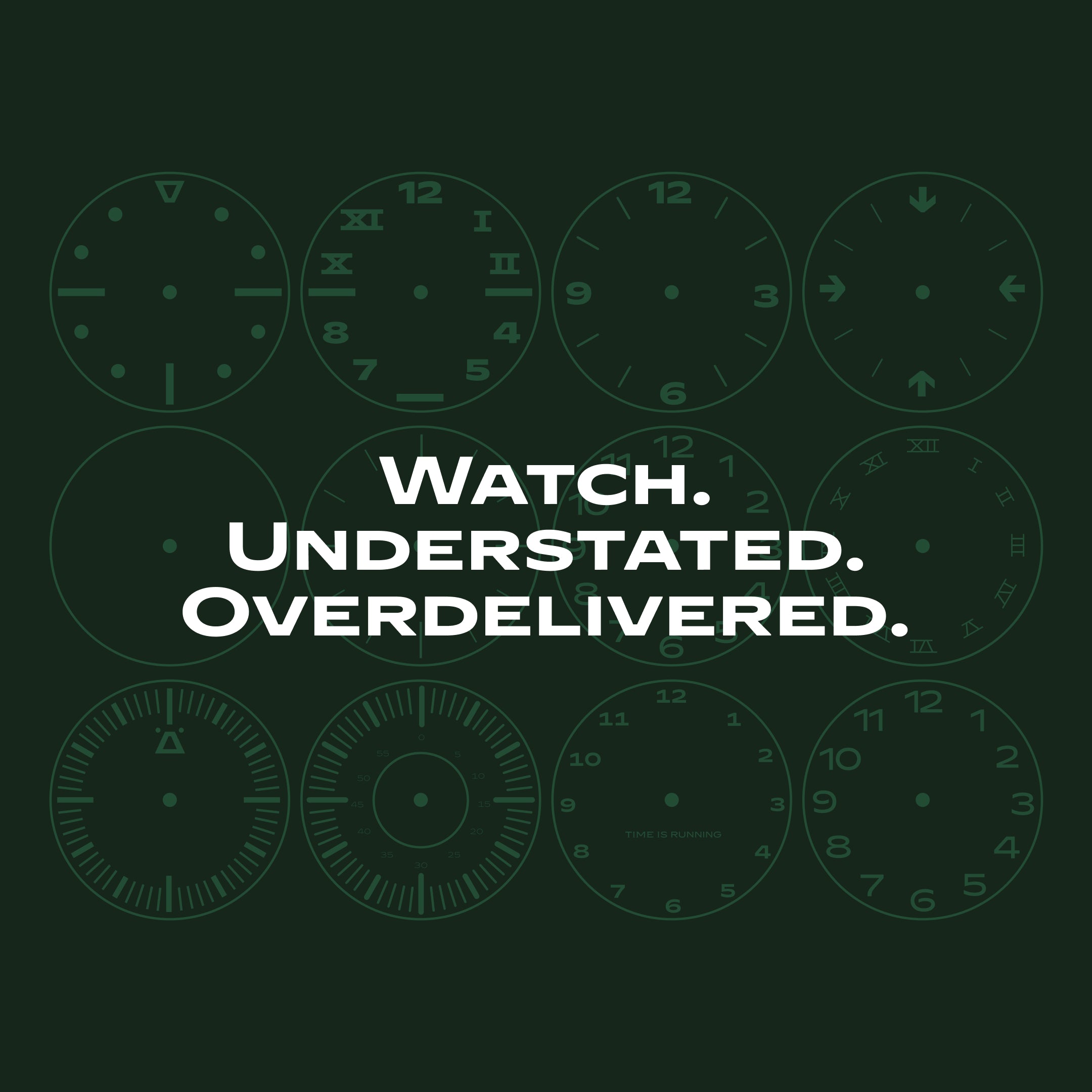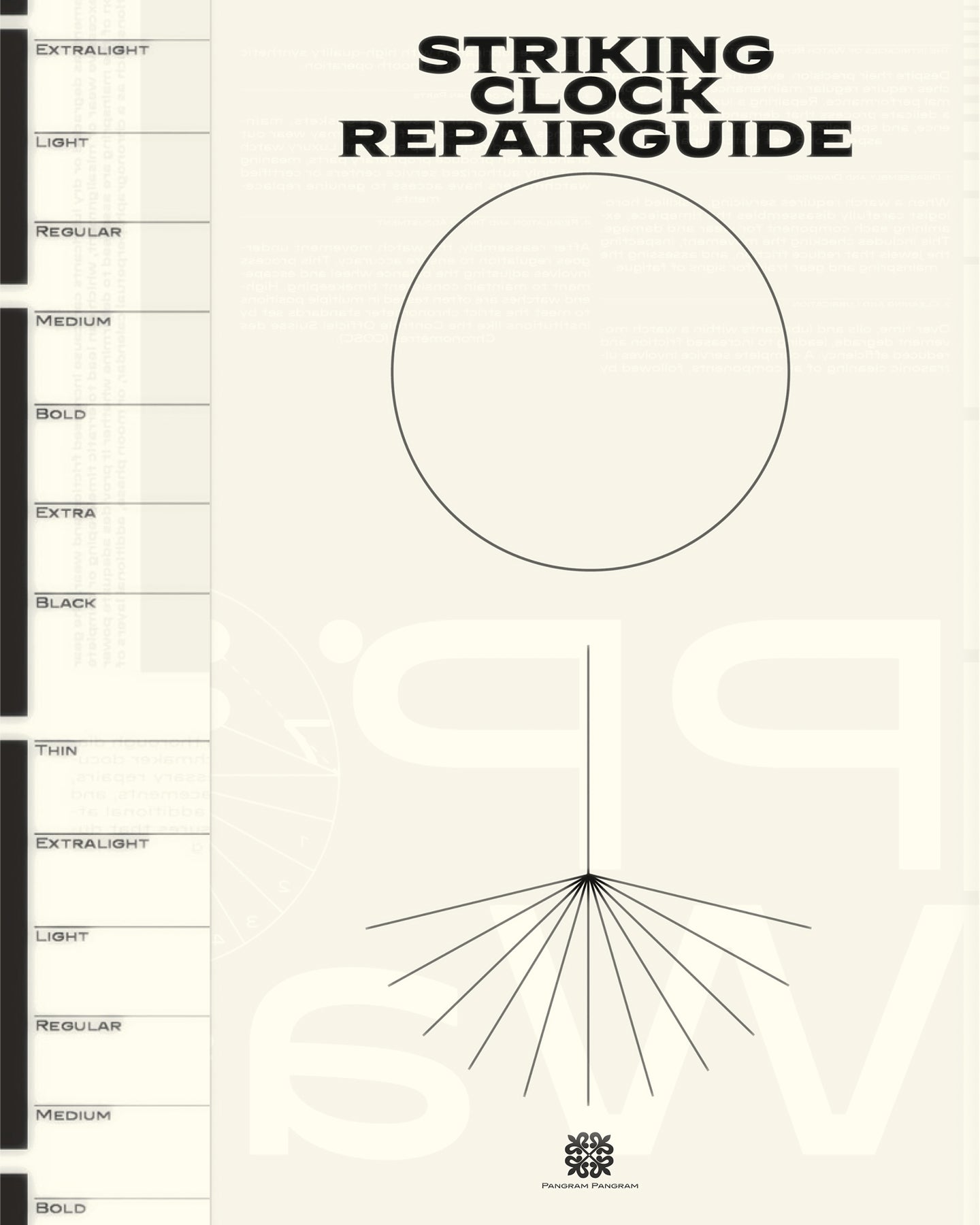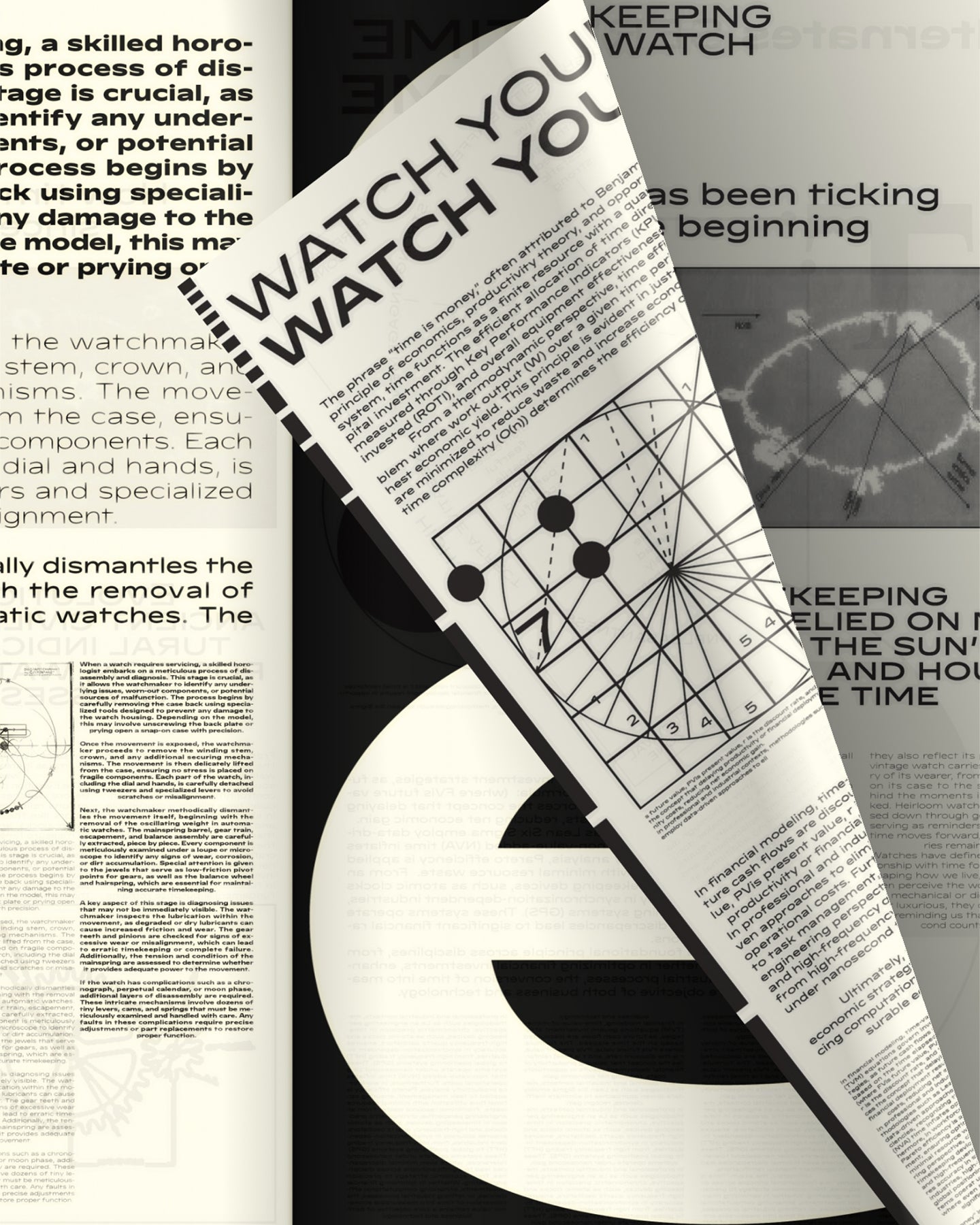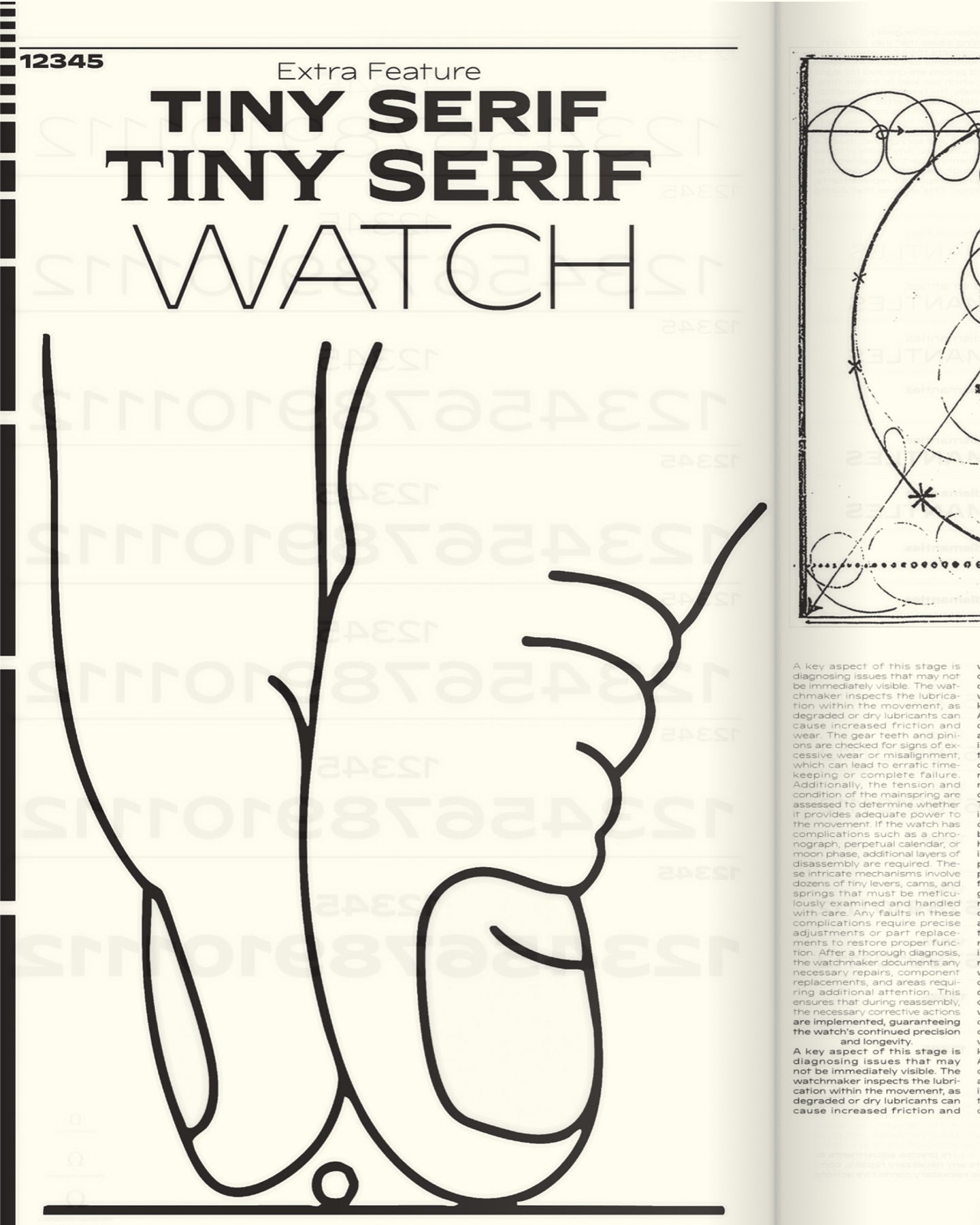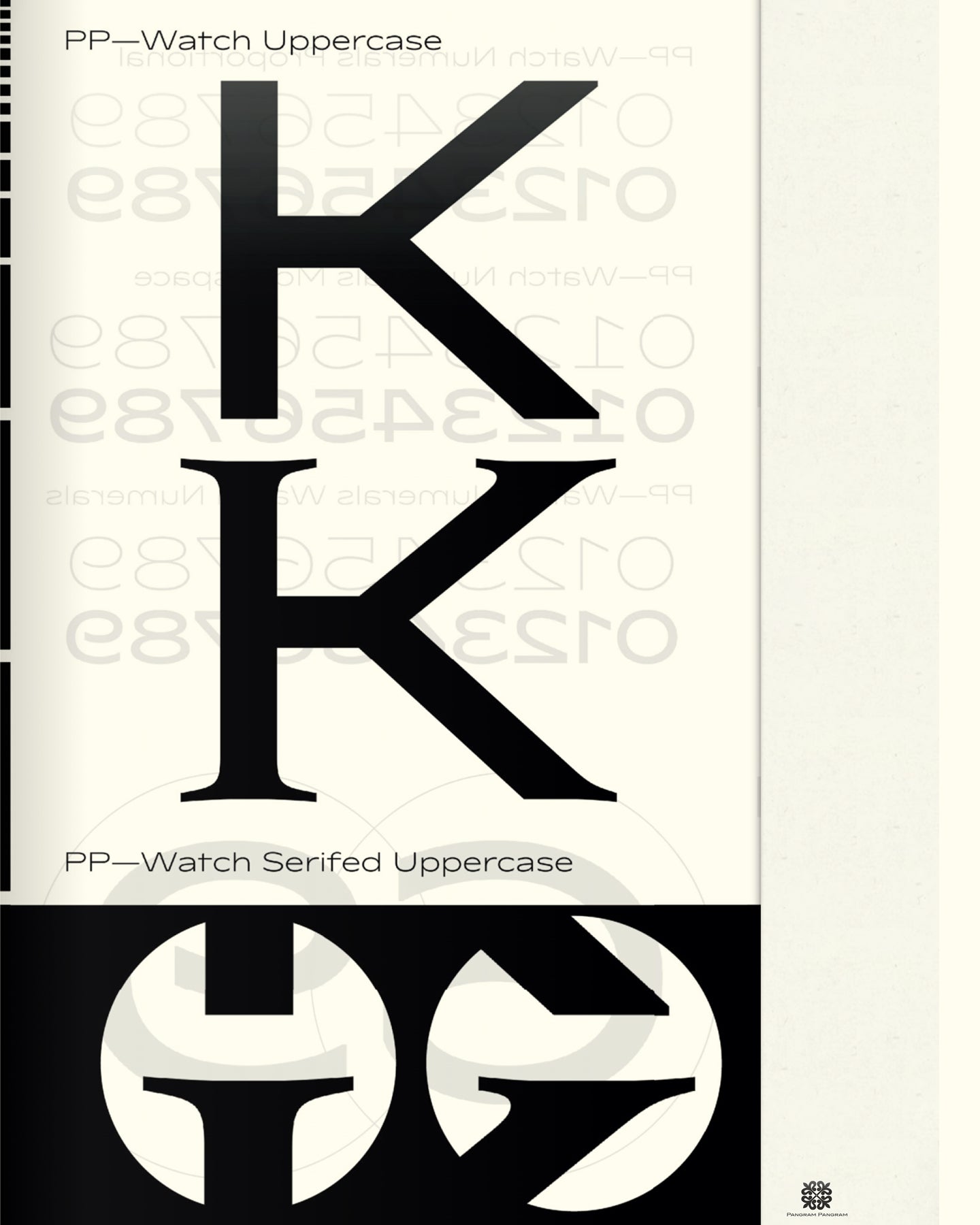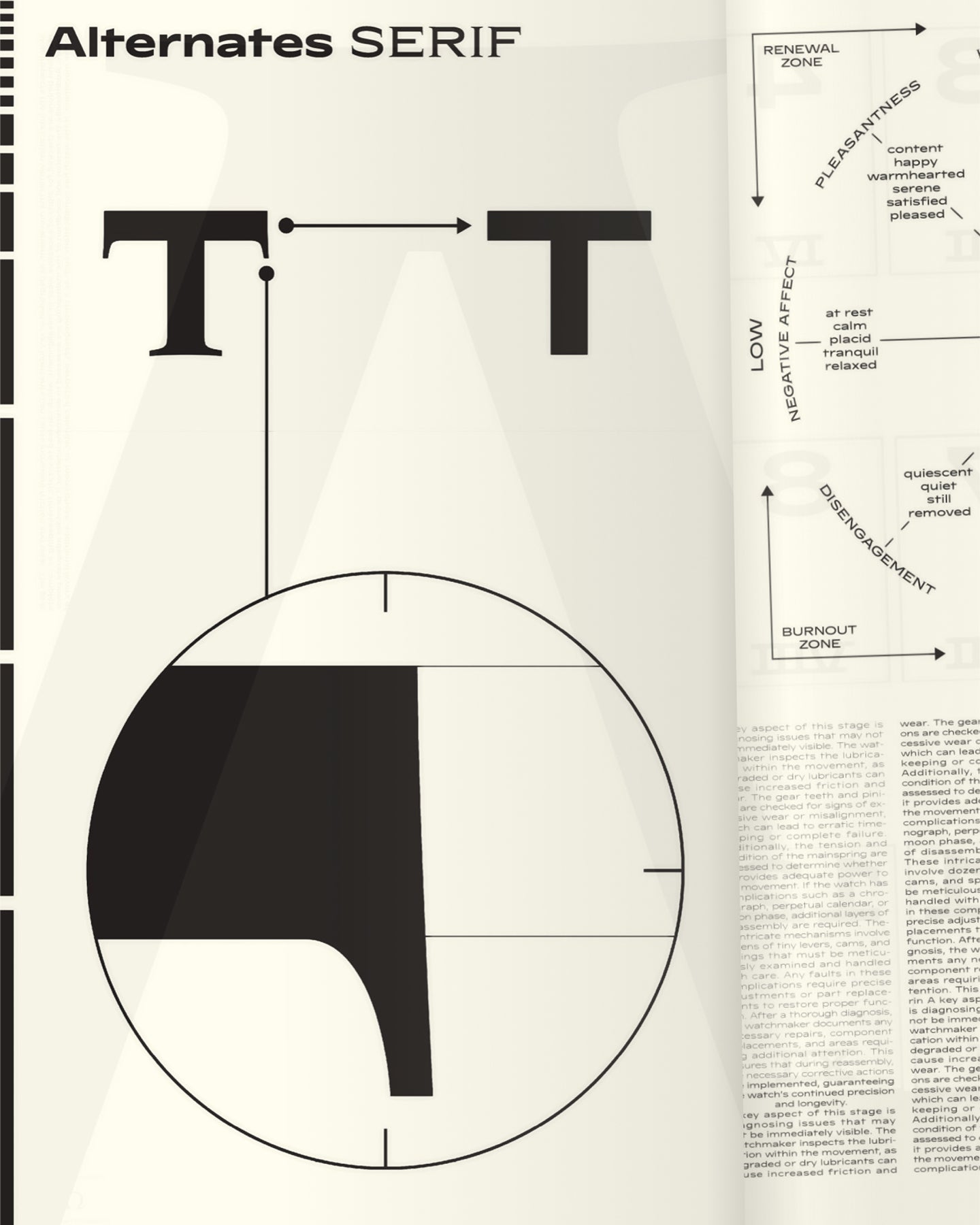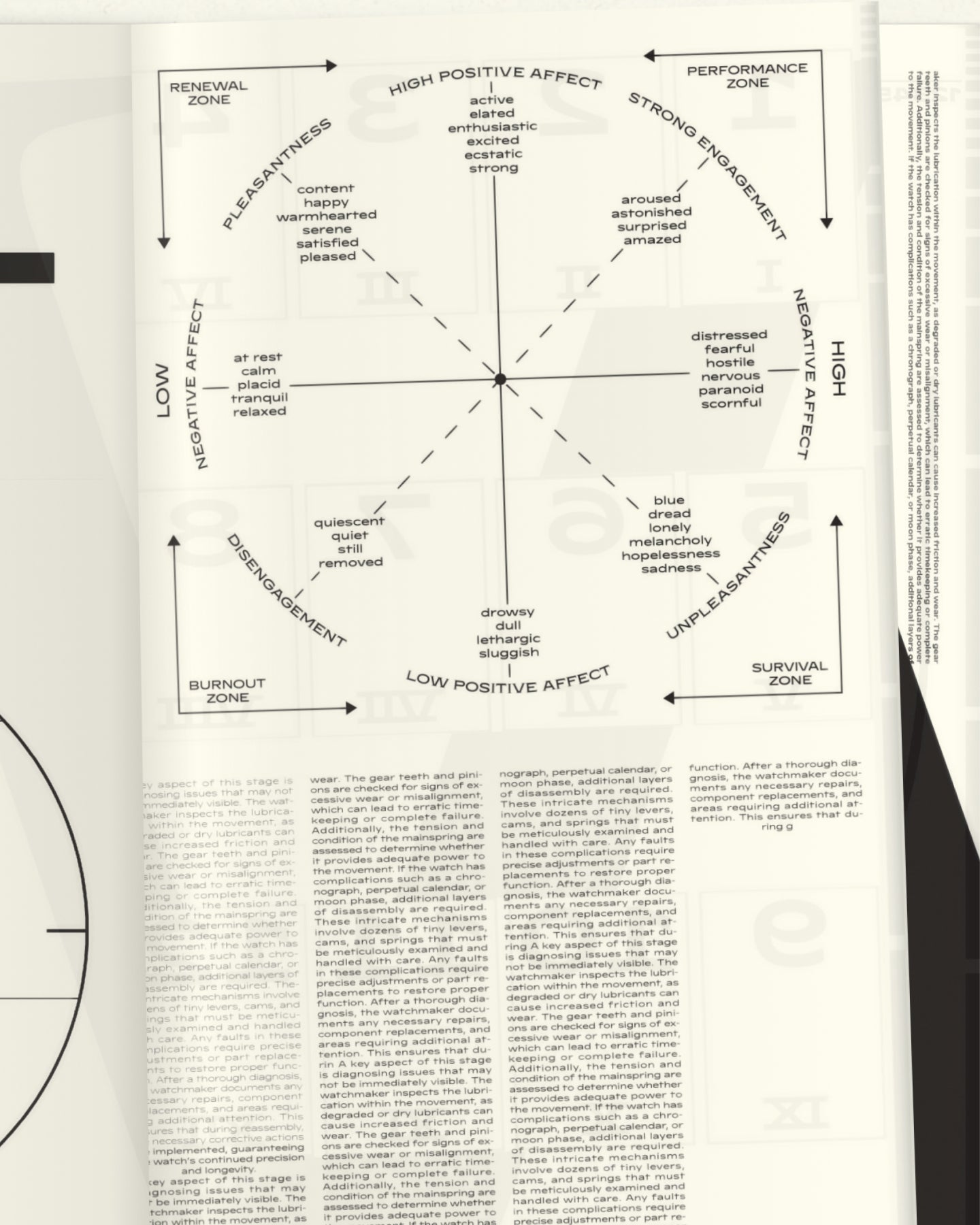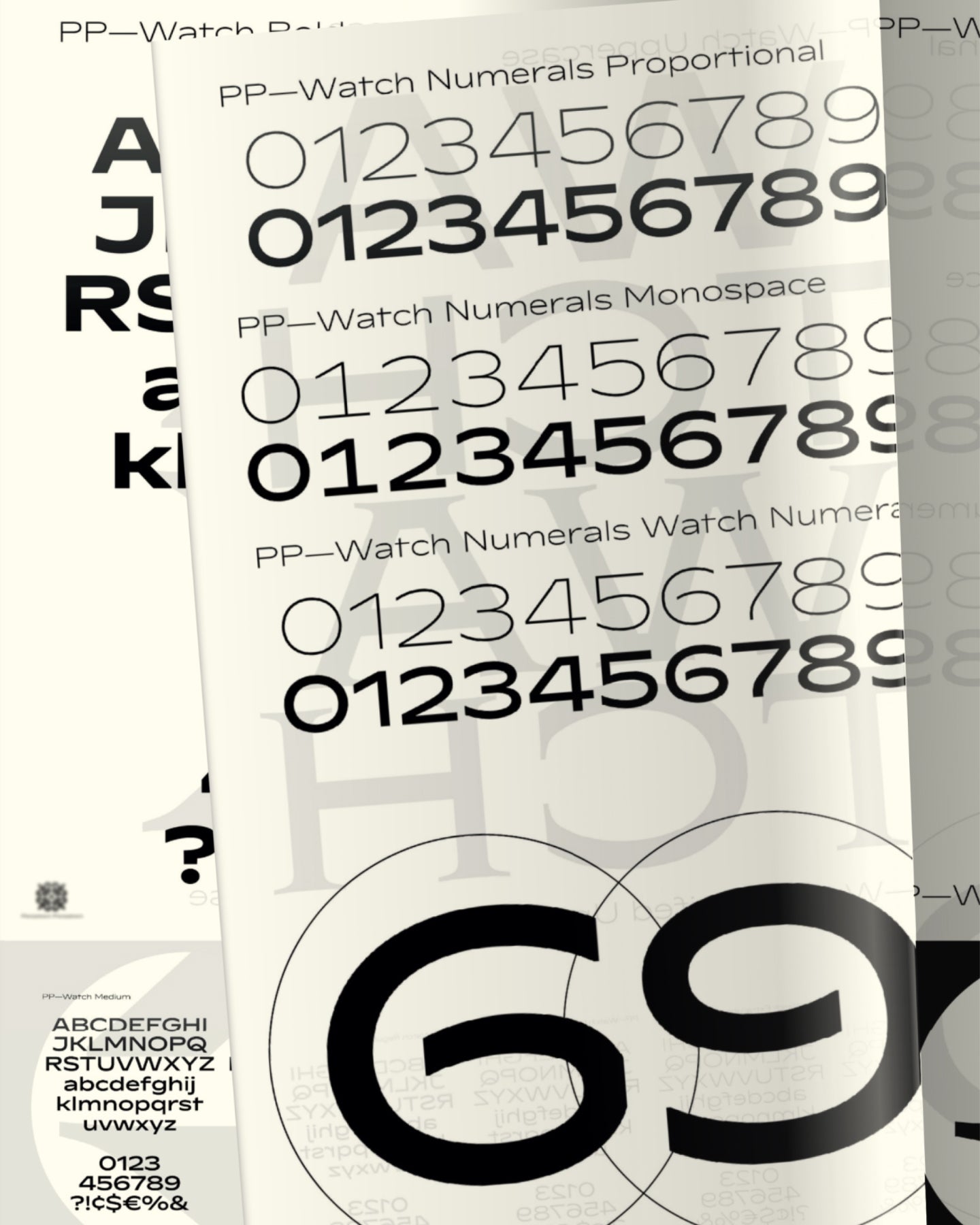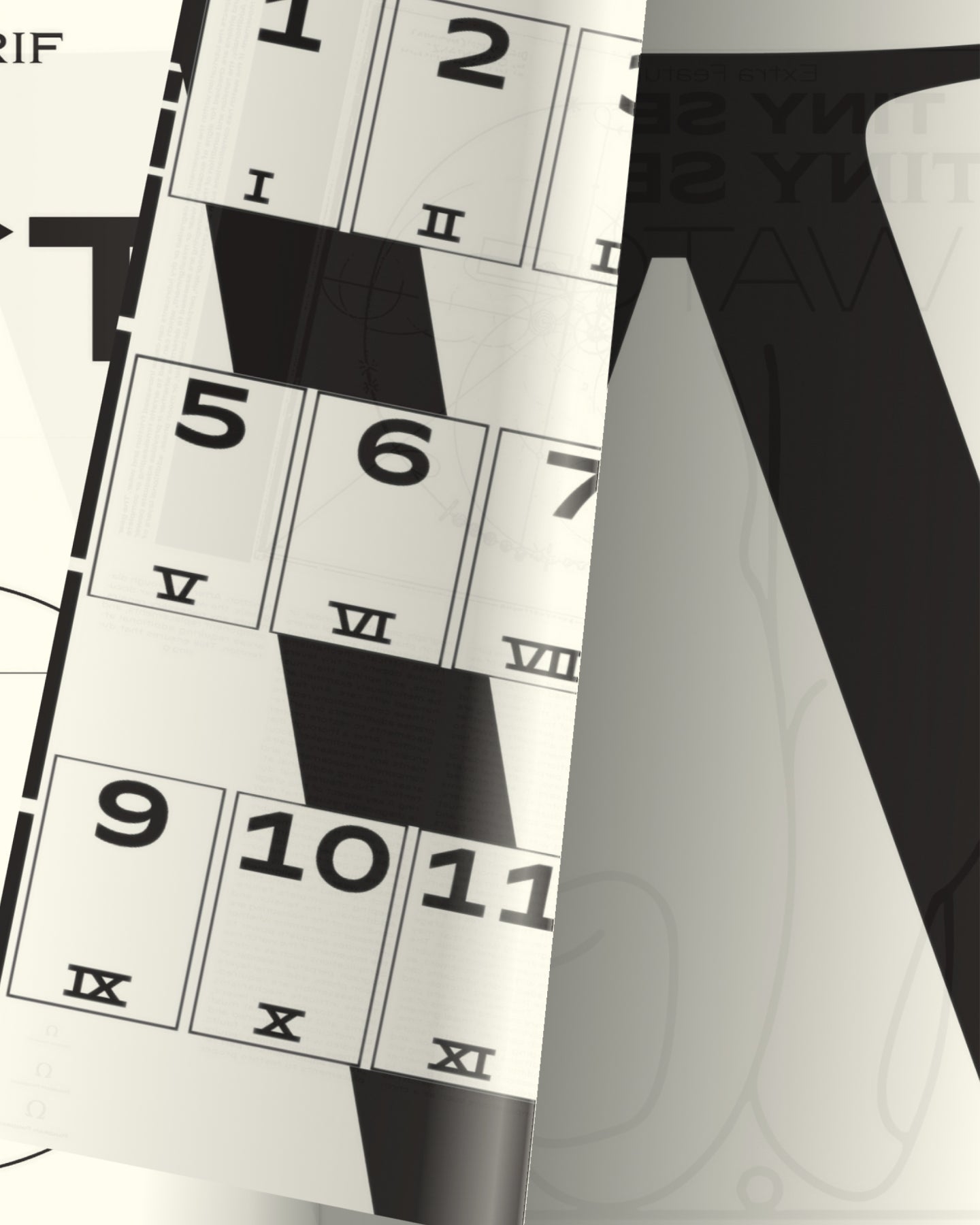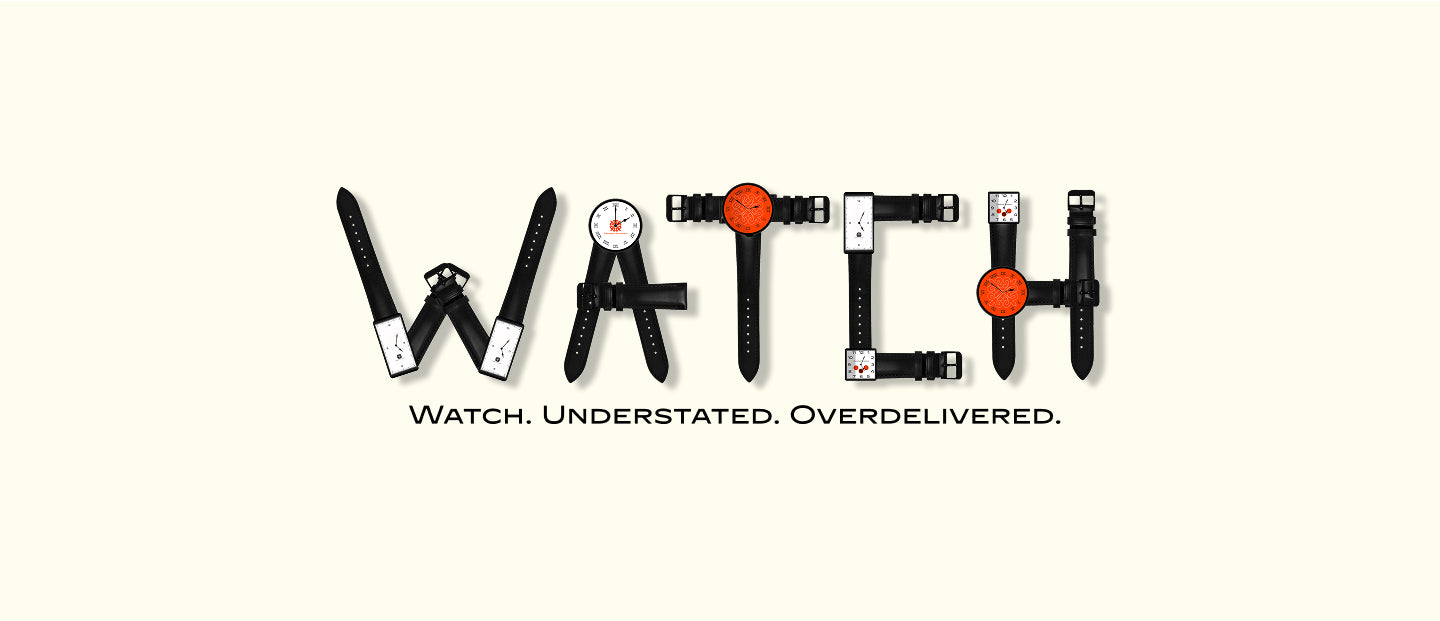
Watch
Quiet Confidence in Every Curve. For those who know the value of every detail.
Understated. Overdelivered.
Precision, patience, and polish—Watch is a typeface born from the intricate world of horology. Inspired by the fine detailing of Swiss timepieces and the typography engraved on classic watch faces, it captures the quiet confidence of craftsmanship that stands the test of time. From skeleton dials to museum archives deep in Switzerland, every decision in its design was shaped with the same obsessive care you’d find in a master watchmaker’s hands.
Technically, Watch is a wide-set sans serif that balances mechanical structure with luxurious refinement. Its calm horizontal posture and tight modulation give it a sense of control and sophistication. Small caps—frequently found on traditional dials—are baked in, offering subtle versatility across cases and sizes. A unique stylistic set adds micro-serifs, echoing the vintage technique of ink traps once used to ensure crisp legibility when printing at tiny scales.
With 9 weights, 994 Glyphs in each, all tied in a powerful variable file, Watch performs with intention. Understated, precise, and timeless—made for brands, publications, and designers who know the value of craft.